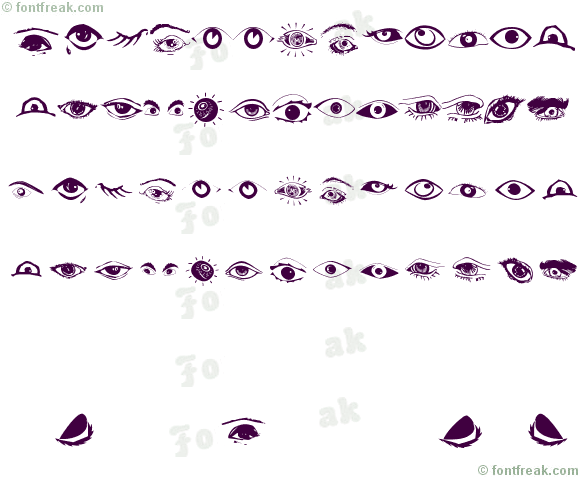
Eyes
About Eyes
The "Eyes" font by Manfred Klein is a unique display typeface that captures attention with its artistic flair. This font belongs to the decorative category, characterized by its playful and stylized representations of eyes. The design features a combination of varying stroke weights, creating a dynamic visual appeal that is both whimsical and striking. The spacing between characters is thoughtfully arranged, ensuring clarity while maintaining an engaging aesthetic. Each character showcases intricate details, such as eyelashes and pupils, adding depth and personality to the text.
This font is particularly versatile for a variety of creative projects. It shines in contexts such as children’s book covers, where its playful nature can captivate young readers. It's also perfect for eye-catching movie posters, especially in genres like fantasy or horror, where a unique typographic approach can enhance visual storytelling. Additionally, the "Eyes" font works well for branding materials aimed at eyewear companies or beauty products, bringing a sense of fun and creativity to marketing campaigns. Graphic designers and content creators will find this font an invaluable tool for adding a distinct touch to their work.
The target audience for the "Eyes" font includes graphic designers, small business owners, and anyone looking to make a memorable impression through their visual communications. Its ability to evoke curiosity makes it an excellent choice for various creative applications.
In conclusion, the "Eyes" font stands out due to its distinctive character and playful design, making it a fantastic choice for those looking to infuse creativity into their projects. With its free availability, the Eyes font free download is a must-have for anyone wanting to elevate their typography game.